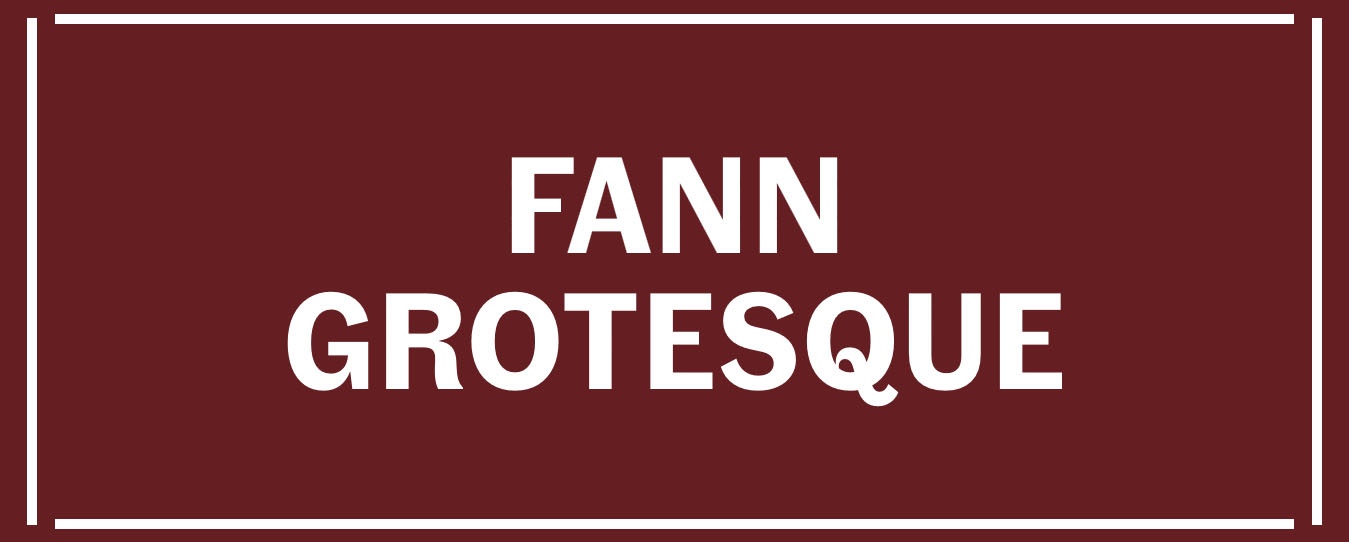
Fann Grotesque Font
Fann Grotesque Font is perfectly suited for contemporary corporate branding, modern web design interfaces, clean advertising campaigns, professional business communications, tech startup identities, minimalist signage systems, streamlined presentations, urban architecture projects, and sophisticated digital applications.
What makes Fann Grotesque Font so exciting is its perfect fusion of classic grotesque tradition with contemporary design sensibilities that creates exceptional functionality while maintaining distinctive character through every precisely engineered letterform. This outstanding typeface embodies the timeless principles of grotesque typography with its clean geometric forms and balanced proportions that demonstrate both historical awareness and modern innovation. The font's distinctive character shapes and contemporary refinements create an atmosphere of professional reliability and design sophistication that resonates with audiences who appreciate the intersection of typographic tradition and cutting-edge functionality. Fann Grotesque Font stands out through its ability to convey contemporary authority, design excellence, and professional competence, making it perfect for projects that need to establish modern credibility while honoring the proven effectiveness of classical grotesque design principles.
The Fann Grotesque Font family includes Thin, Light, Regular, Medium, Bold, and Black weights, each available in both roman and italic styles for comprehensive design flexibility. The family also features condensed and extended variations that enhance the font's versatility and provide complete solutions for complex branding systems requiring consistent typographic performance across multiple applications.
When you choose Fann Grotesque Font Free Download, you're selecting a typeface that brings authentic contemporary sophistication and grotesque tradition to your creative projects. This font excels in creating designs that need to convey professionalism, modernity, and design authority. Its refined grotesque appearance makes it particularly effective for corporate brands, tech companies, and professional services that want to establish credibility while maintaining contemporary appeal and functional excellence.
The technical excellence of Fann Grotesque Font includes comprehensive character sets supporting multiple languages, advanced OpenType features, and precision-engineered spacing optimized for both screen and print applications. The font maintains exceptional legibility across all sizes while providing the flexibility needed for complex design systems that require seamless integration across diverse media platforms and contemporary communication contexts.
Whether you're developing corporate identity systems, designing professional communications, creating modern marketing materials, or building comprehensive brand guidelines that demand grotesque reliability and contemporary sophistication, Fann Grotesque Font delivers the perfect combination of typographic tradition and modern functionality that ensures your projects remain professionally compelling and visually effective for today's design-conscious business audiences.